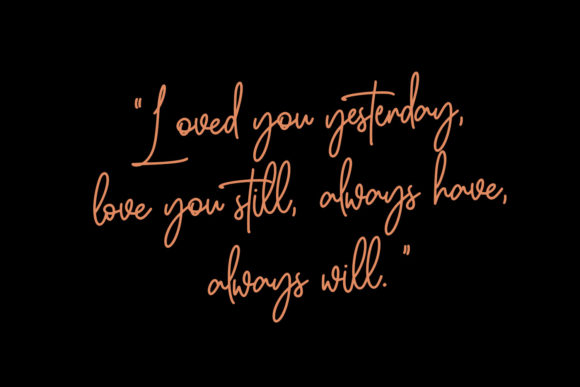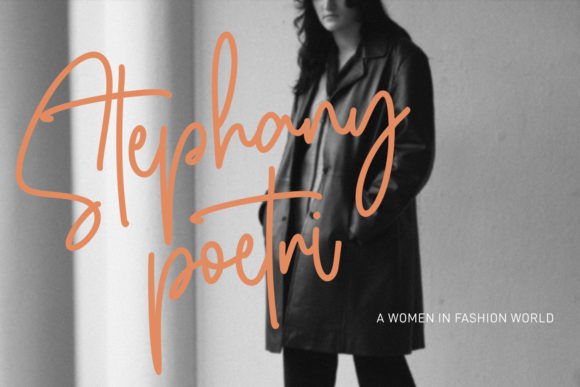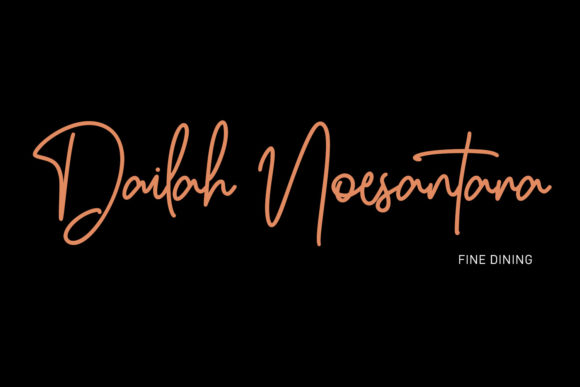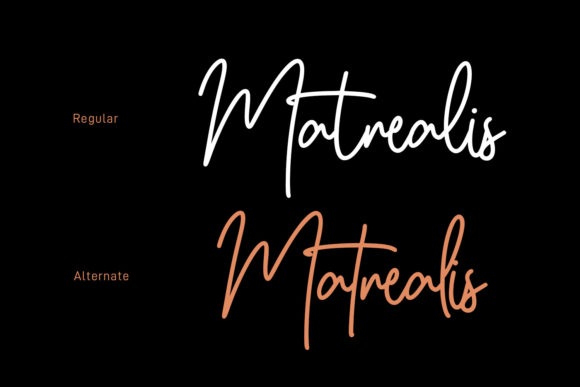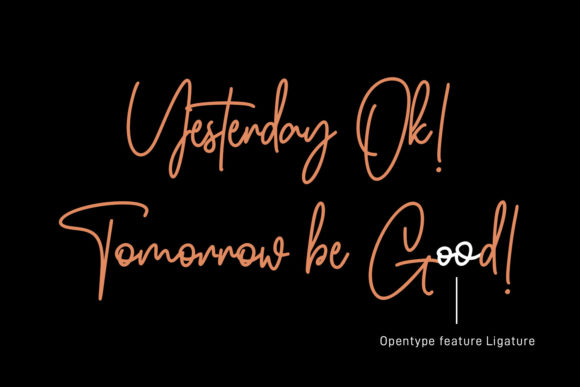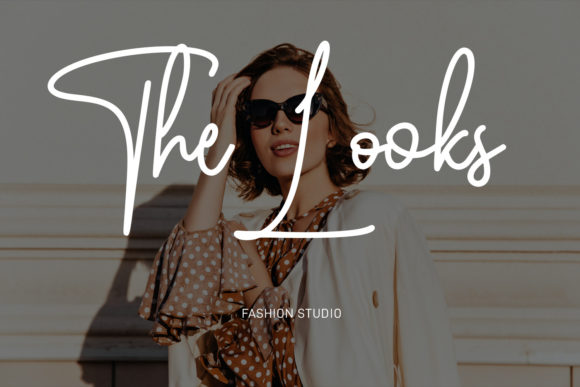
Introducing Agretha Font: Elevate Your Designs with Elegance and Fun
Are you a designer or crafter looking for a unique and versatile font to take your creative projects to the next level? Look no further than Agretha Font, a stunning signature script font that is sure to impress. With its regular mono-line strokes, fun characters, ligatures, and alternates, Agretha is the perfect addition to any designer’s toolkit.
What is Agretha Font?
Agretha Font is a beautifully crafted signature script font that exudes elegance and sophistication. Its regular mono-line strokes give it a smooth, fluid feel, while its fun characters and ligatures add a playful touch. Whether you’re designing a logo, creating a brand identity, or crafting a one-of-a-kind invitation, Agretha Font is the perfect choice.
Key Features of Agretha Font
- Regular Mono-Line Strokes: Agretha Font features regular mono-line strokes that give it a smooth, consistent look.
- Fun Characters: The font includes a range of fun characters that add a playful touch to your designs.
- Ligatures and Alternates: Agretha Font also includes ligatures and alternates, allowing you to add variety and interest to your text.
- Signature Script Style: The font’s signature script style makes it perfect for creating elegant, sophisticated designs.
What Can You Use Agretha Font For?
Agretha Font is incredibly versatile and can be used for a wide range of design projects, including:
- Logo Design: Create a unique and memorable logo for your brand with Agretha Font.
- Invitations and Stationery: Use Agretha Font to create beautiful, one-of-a-kind invitations and stationery.
- Branding and Identity: Develop a strong brand identity with Agretha Font, perfect for businesses and entrepreneurs.
- Crafting and Scrapbooking: Add a touch of elegance to your crafting and scrapbooking projects with Agretha Font.
Why Choose Agretha Font?
With so many fonts available, why choose Agretha Font? Here are just a few reasons:
- Unique and Elegant: Agretha Font is a truly unique and elegant font that will set your designs apart.
- Versatile: The font’s versatility makes it perfect for a wide range of design projects.
- High-Quality: The font is high-quality and designed to produce crisp, clear text at any size.
Tips for Using Agretha Font
Here are a few tips for getting the most out of Agretha Font:
- Experiment with Different Sizes: Agretha Font looks great at a range of sizes, so don’t be afraid to experiment.
- Play with Ligatures and Alternates: The font’s ligatures and alternates can add a lot of interest to your text, so try mixing things up.
- Use it with Other Fonts: Agretha Font pairs well with a range of other fonts, so try combining it with different fonts to create a unique look.
Agretha Font is a stunning signature script font that is sure to elevate your designs. With its regular mono-line strokes, fun characters, ligatures, and alternates, it’s the perfect choice for designers and crafters looking for a unique and versatile font. Whether you’re creating a logo, invitation, or brand identity, Agretha Font is the perfect addition to your toolkit.